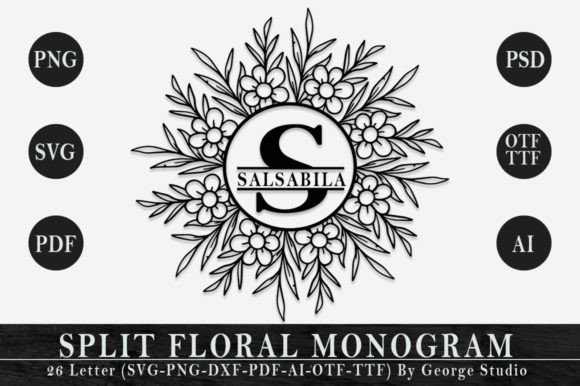
Introducing Salsabila Monogram Font, the epitome of elegance and charm in the world of typography. This decorative font, brought to you by the renowned George Studio, is meticulously crafted to captivate hearts and bring your creative visions to life.
Salsabila Monogram is adorned with a captivating daisy motif, exuding a sense of whimsical beauty and sophistication. Its intricate details and delicate curves lend a distinctive touch to your designs, making them stand out from the ordinary.
Let your creativity flourish with Salsabila Monogram. Whether you're designing T-shirts, tote bags, hats, stickers, logos, or cards, this font adds an air of refinement and grace to every project. Its versatility knows no bounds, allowing you to create stunning visuals that leave a lasting impression.
Picture your designs adorned with the allure of Salsabila Monogram. Your T-shirts will become walking works of art, your tote bags will radiate effortless style, and your hats will brim with individuality. Your stickers will be like tiny treasures, adding a touch of enchantment to any surface they grace.
Salsabila Monogram is not just a font. It's an invitation to let your imagination soar and create designs that captivate and inspire. Whether you're a seasoned designer or just starting your creative journey, this font will elevate your work to new heights of beauty and sophistication.
Embrace the allure of Salsabila Monogram today and embark on a creative odyssey that knows no limits. Let your designs blossom with the exquisite charm of this one-of-a-kind font.